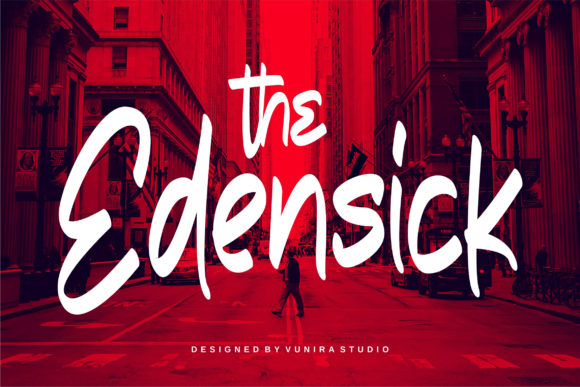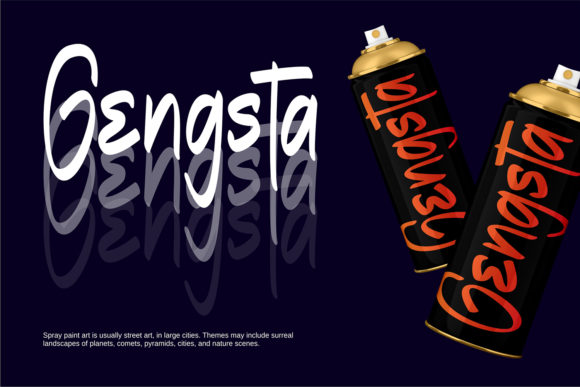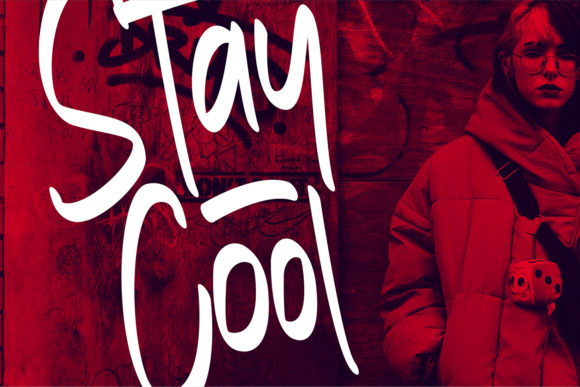
About The Edensick Font
The Edensick is a bold and flowing handwritten font. Fall in love with its incredibly versatile style and use it to create beautiful stationary art, eye-catching social media posts, and much more!